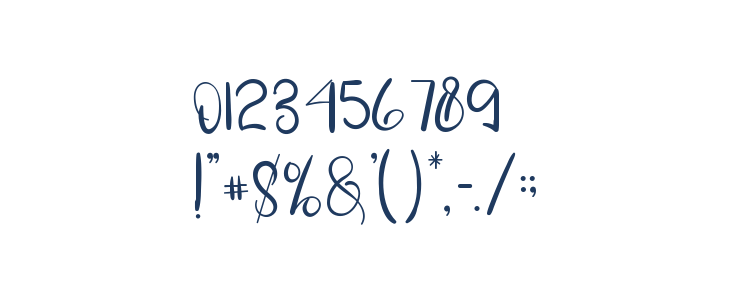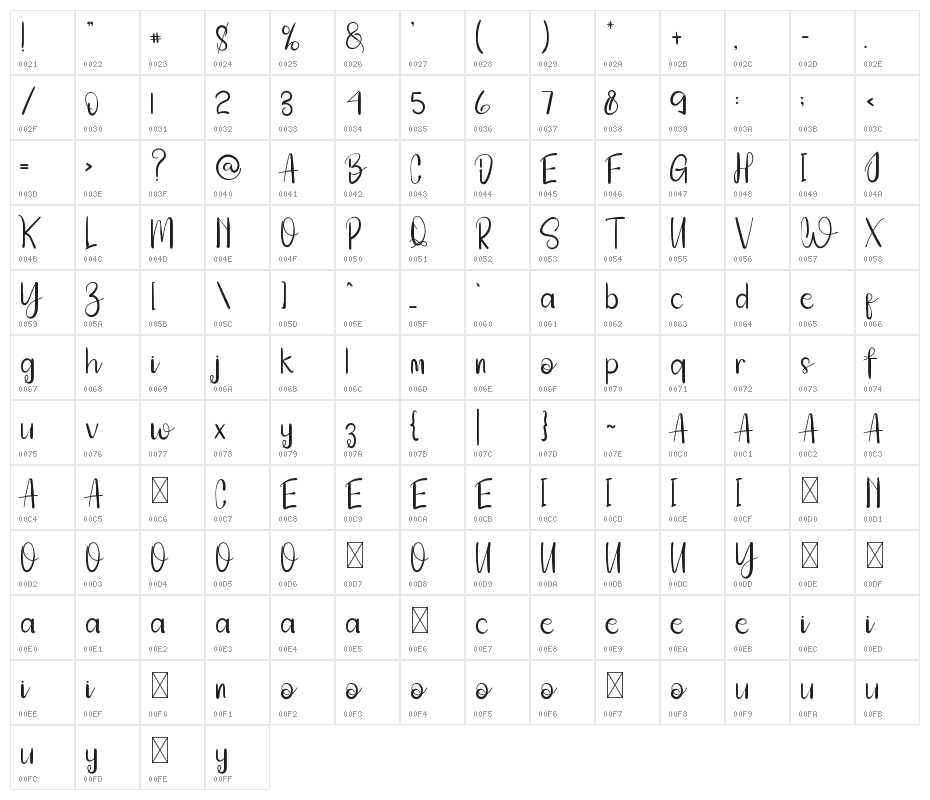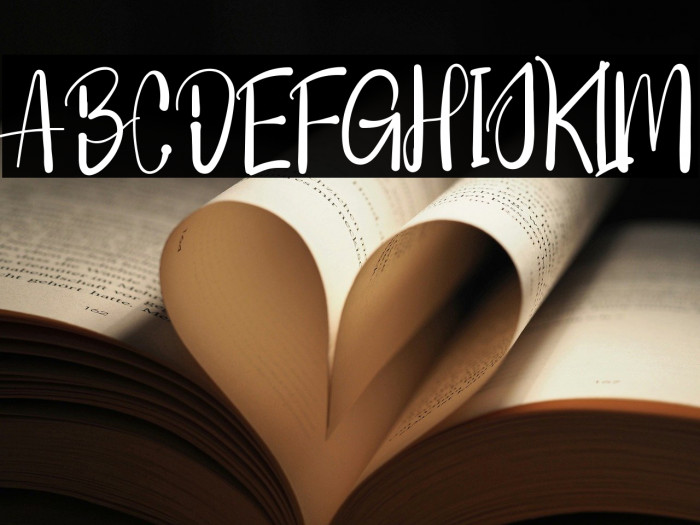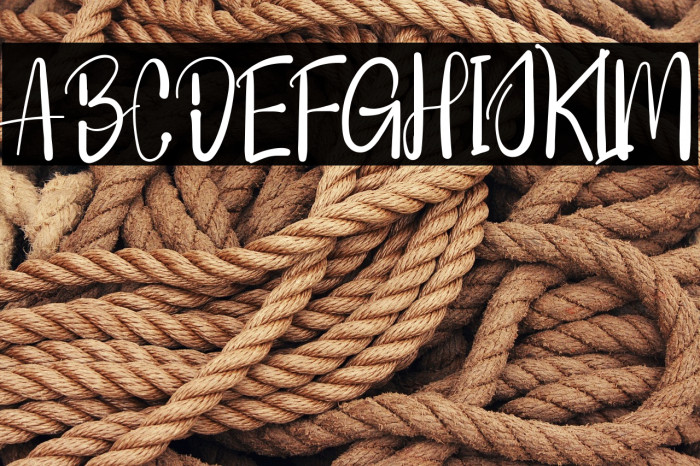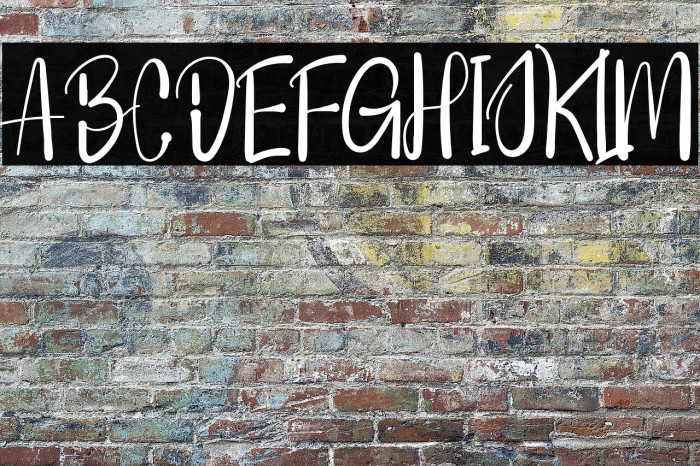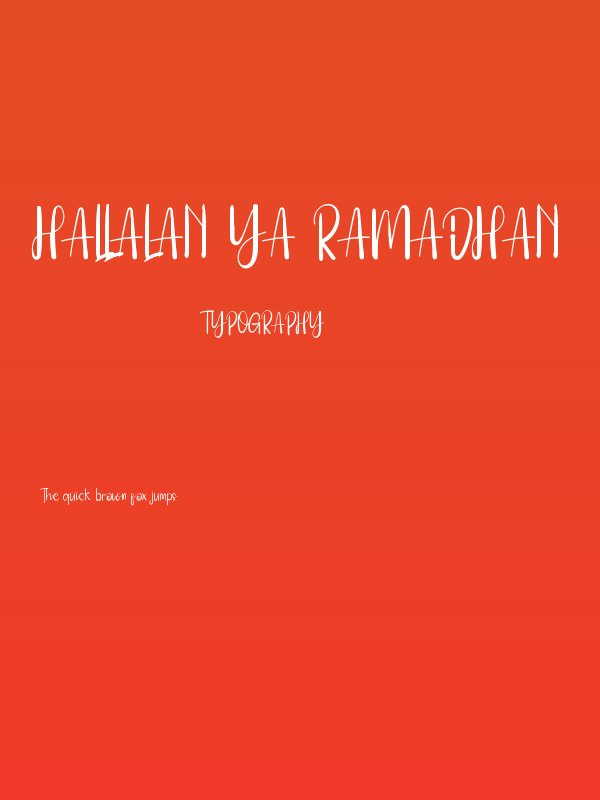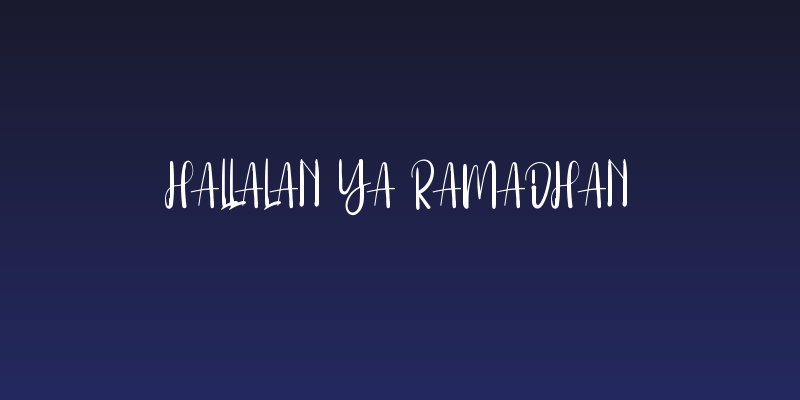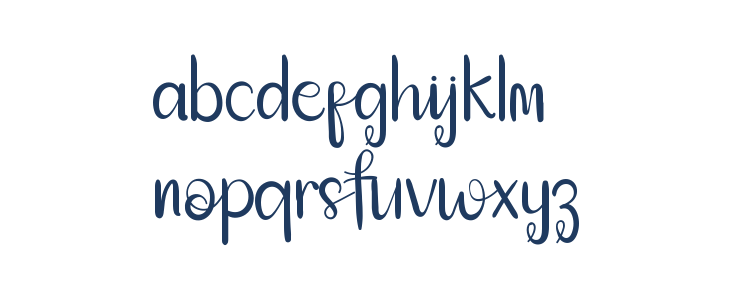
Hallalan Ya Ramadhan Font
Hallalan Ya Ramadhan Description
This font features a playful and whimsical script style with a handwritten appearance. The letters are characterized by their flowing, interconnected strokes and varying thickness, giving it a dynamic and lively feel. The uppercase letters are tall and slender, while the lowercase letters maintain a consistent, rounded form. Numbers and special characters follow the same playful aesthetic, making the font versatile for creative projects. The overall design is modern and artistic, suitable for capturing attention with its unique flair.
| Proposed Projects | Ideal for greeting cards, invitations, branding, and social media graphics. |